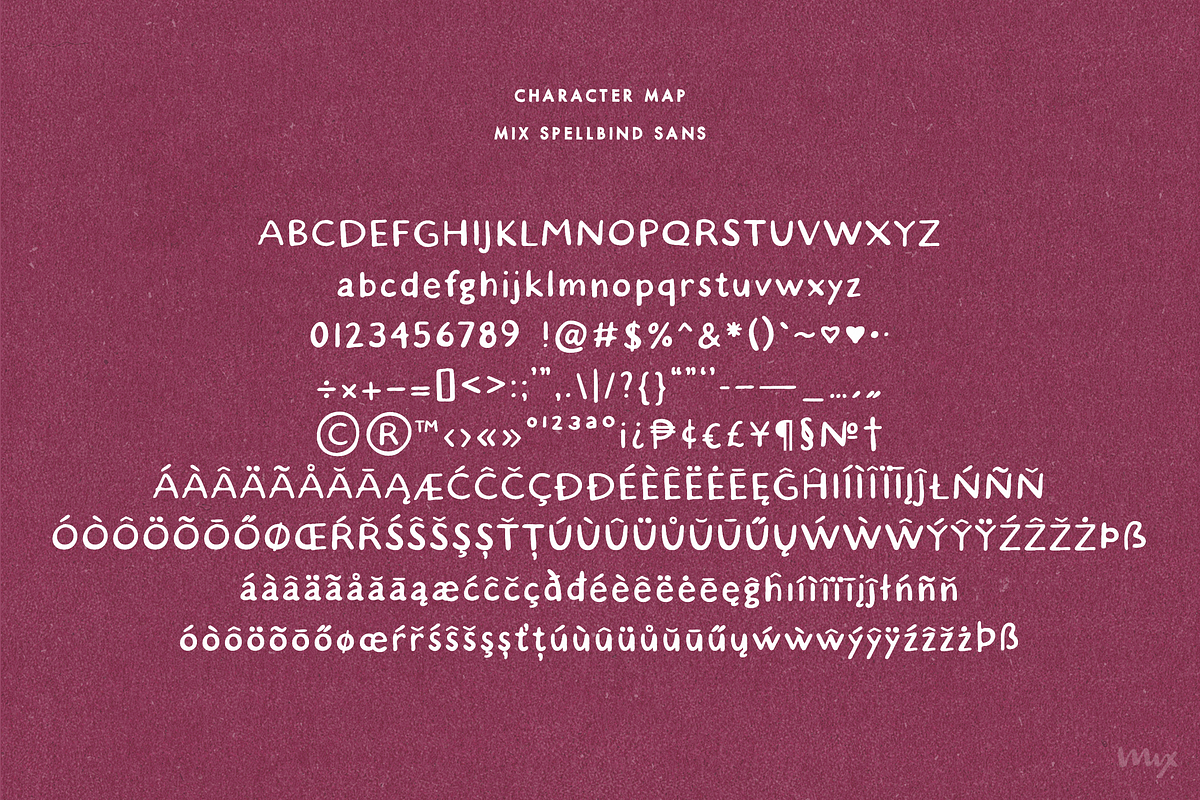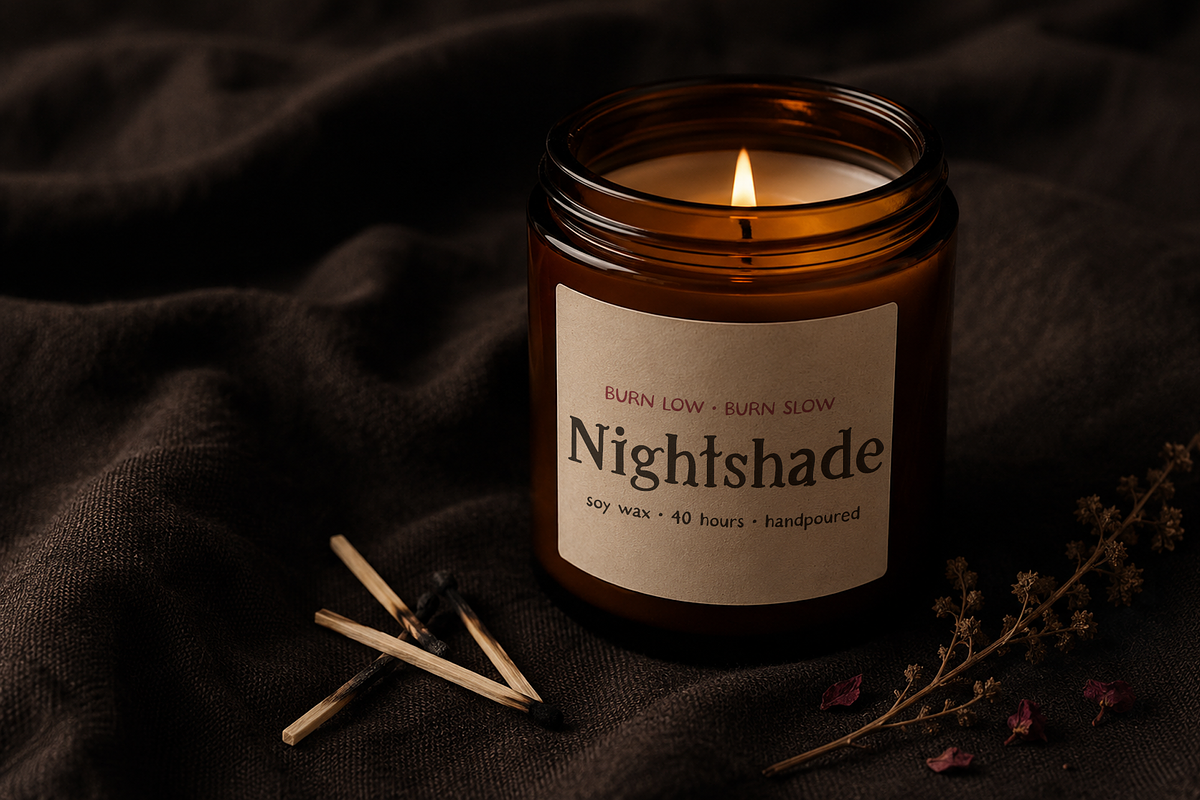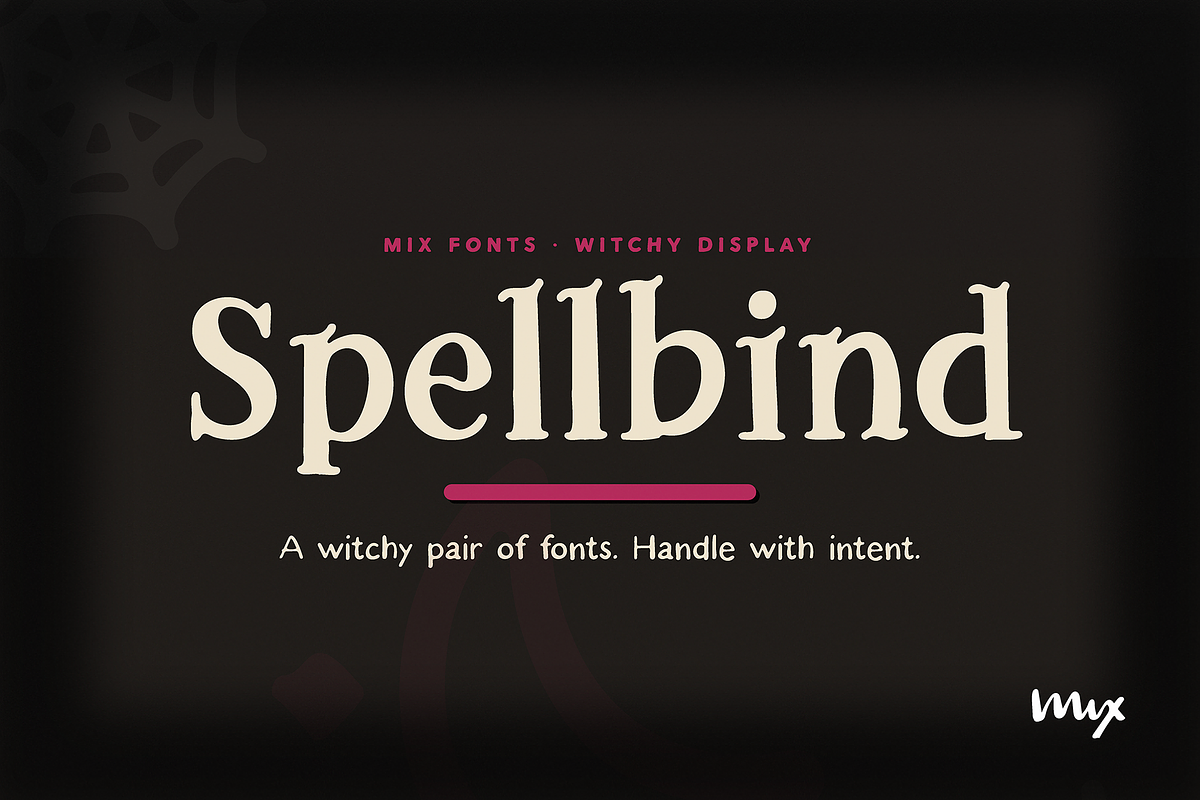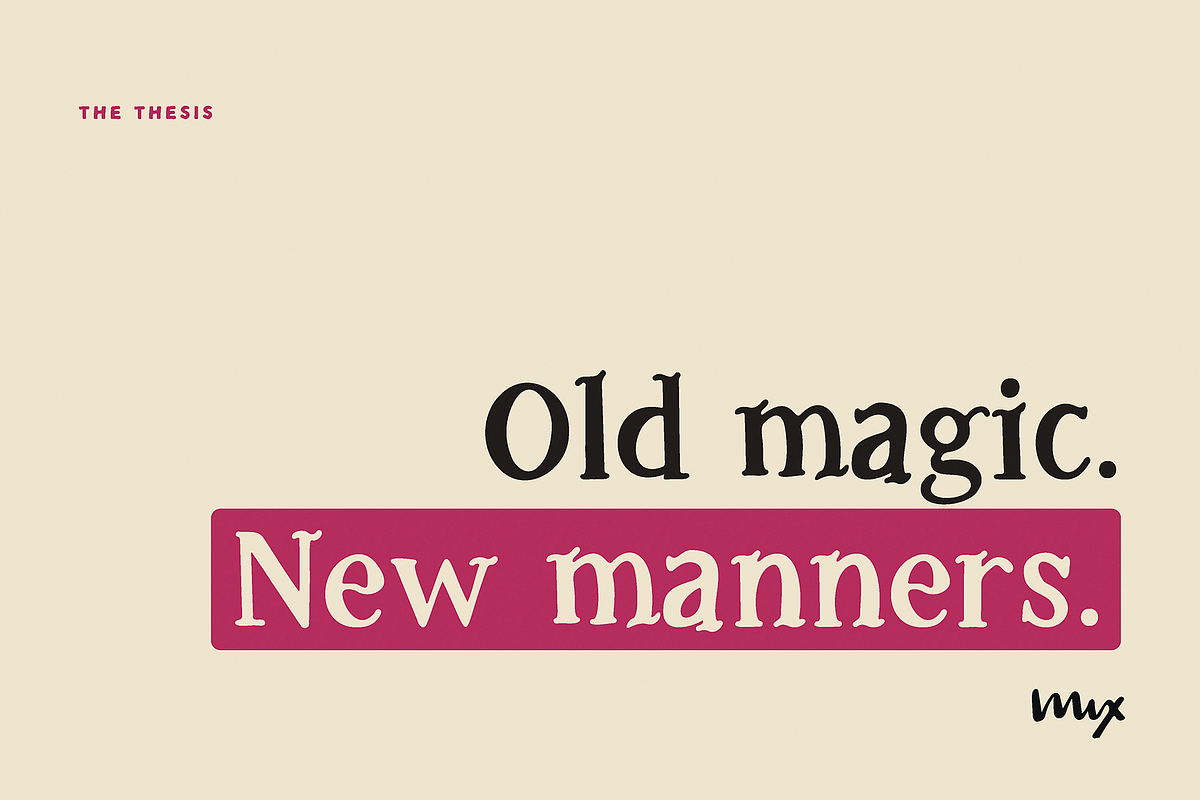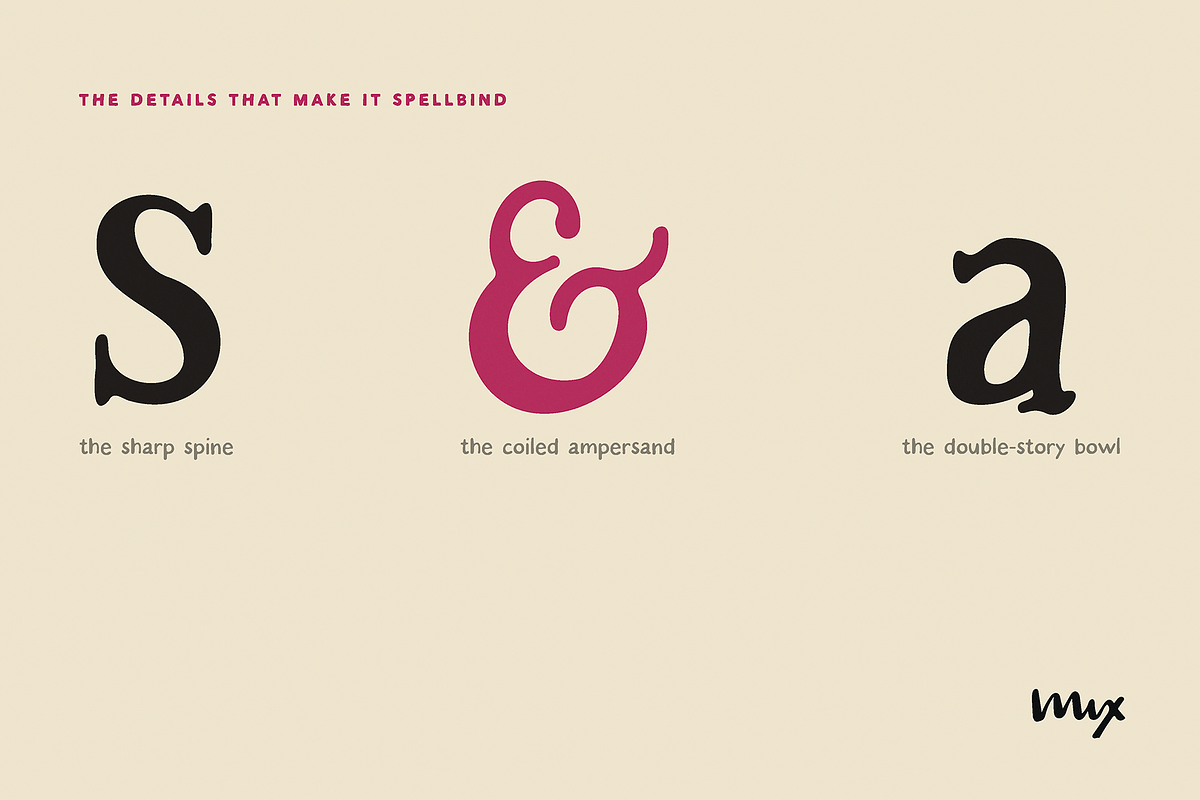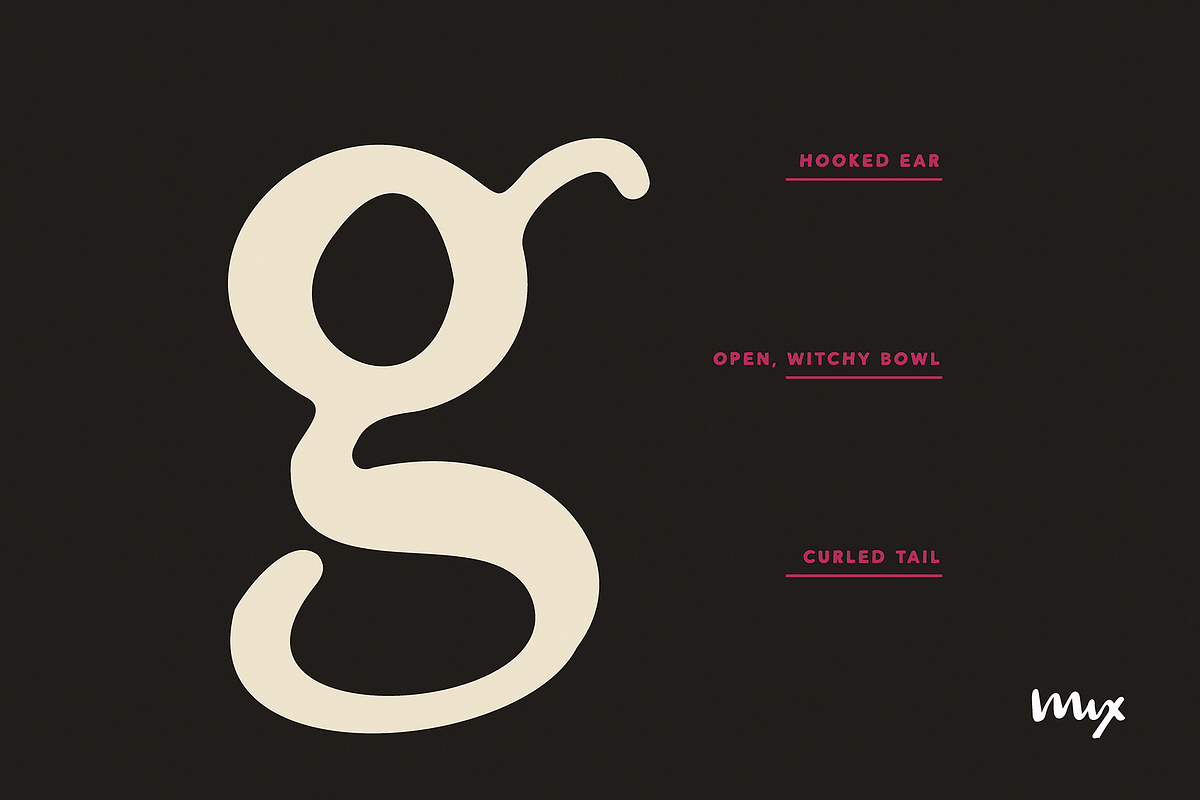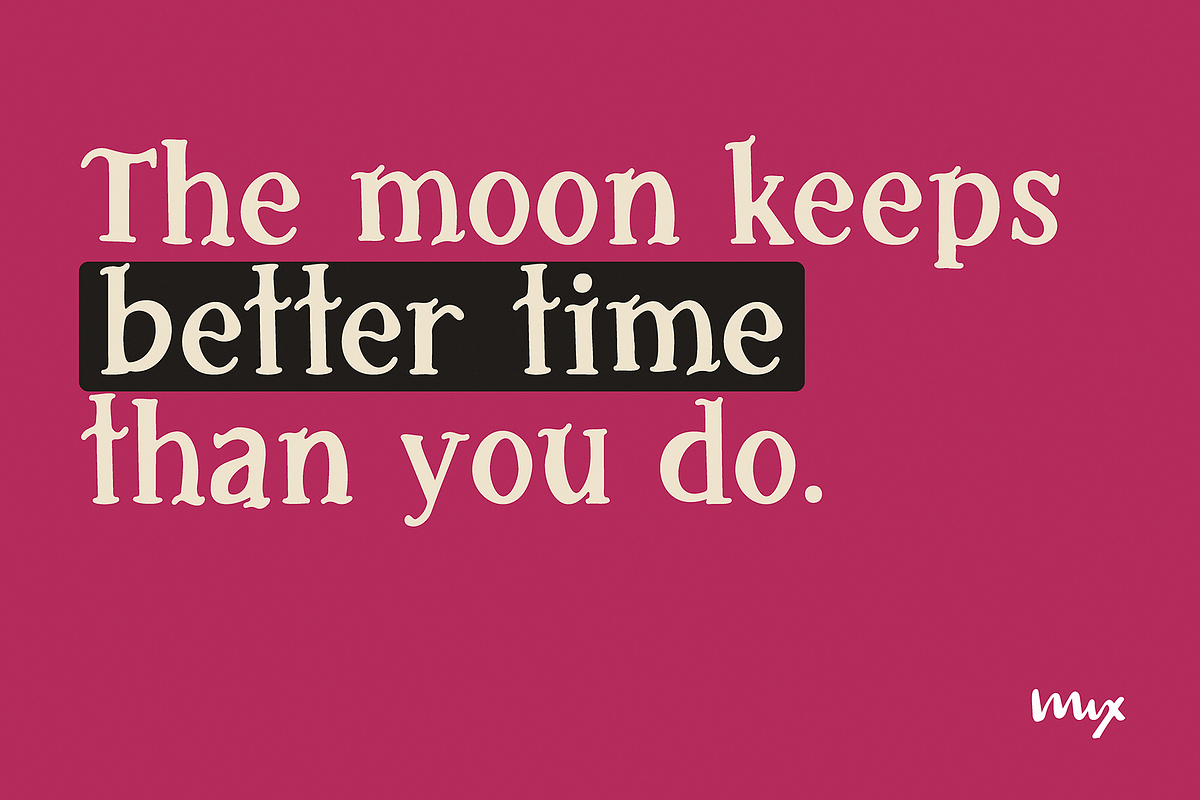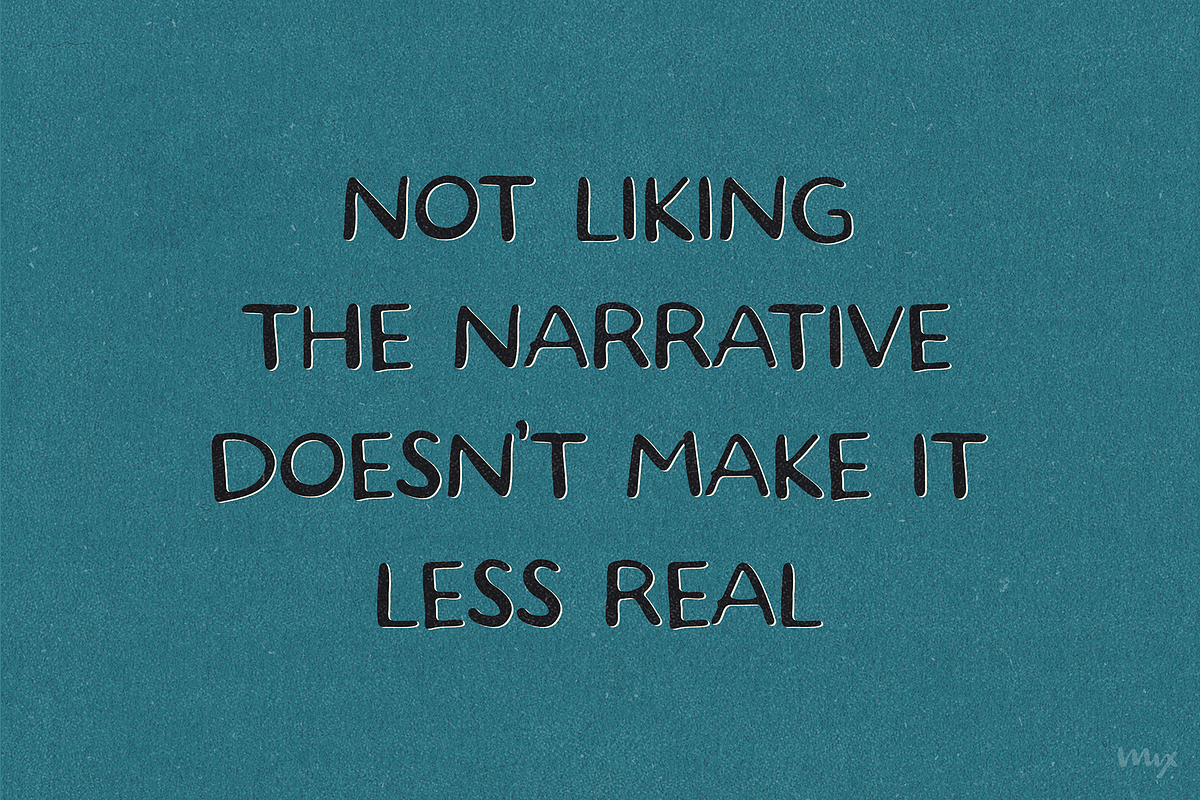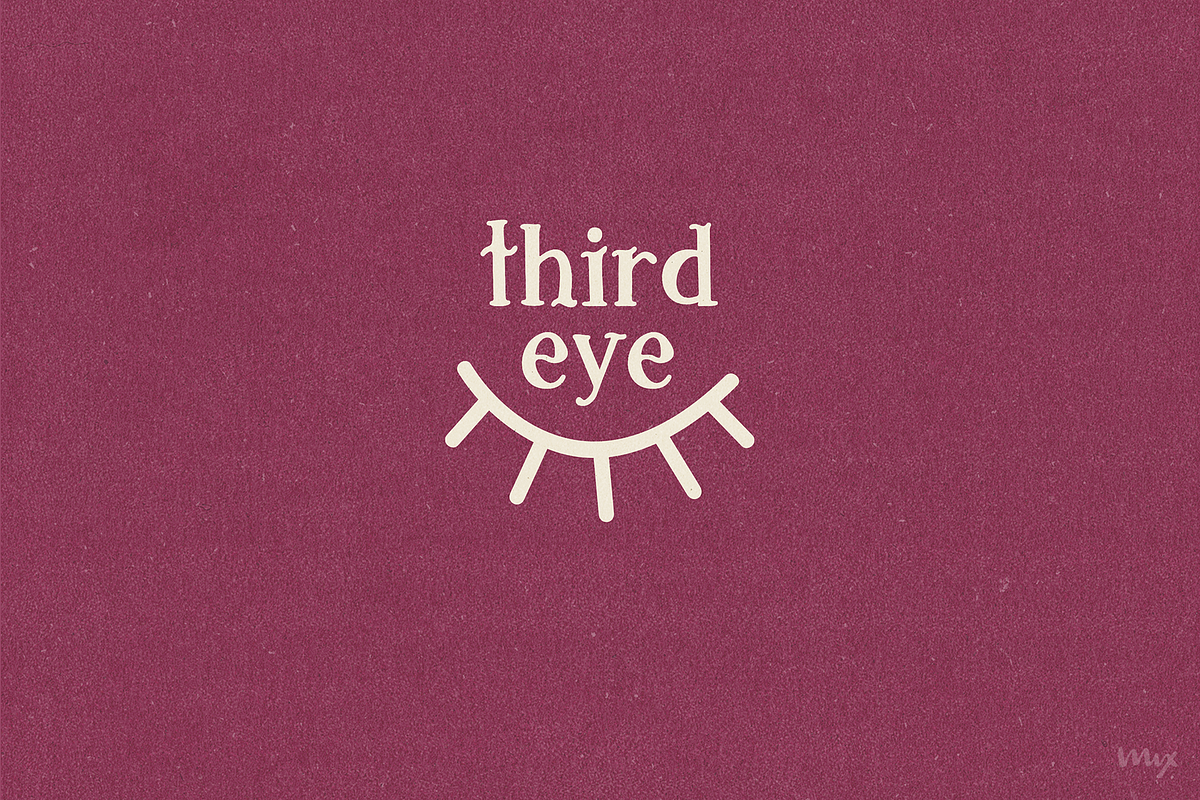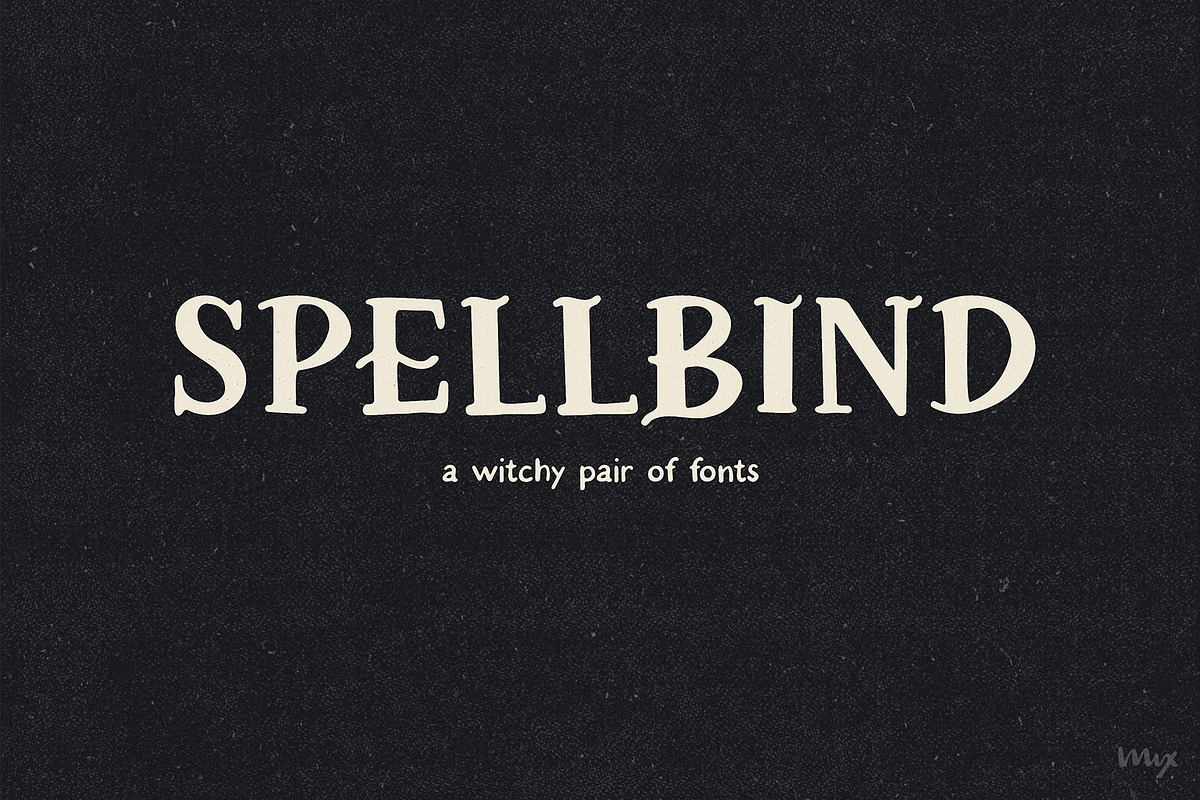
Spellbind — A Witchy Font Duo
Mix Spellbind is witchy, but make it tasteful.
A bold display serif with quirky mystical details, paired with a clean rounded sans that keeps the whole thing from tipping into costume. The serif brings the atmosphere. The sans brings it back down to earth. Together they're the occult aesthetic you can actually put on a real brand: a tarot deck, an apothecary label, a natural-wine bottle, a candle that isn't trying too hard.
Use the serif for the statement and the sans for everything around it, and you have a full witchy identity in one duo. It's mysticism with restraint, the kind that reads considered, not spooky-season.
Made for: tarot and oracle decks, apothecary and candle labels, moody packaging, event branding, book covers, and anything that wants a little magic without the cheap Halloween look.